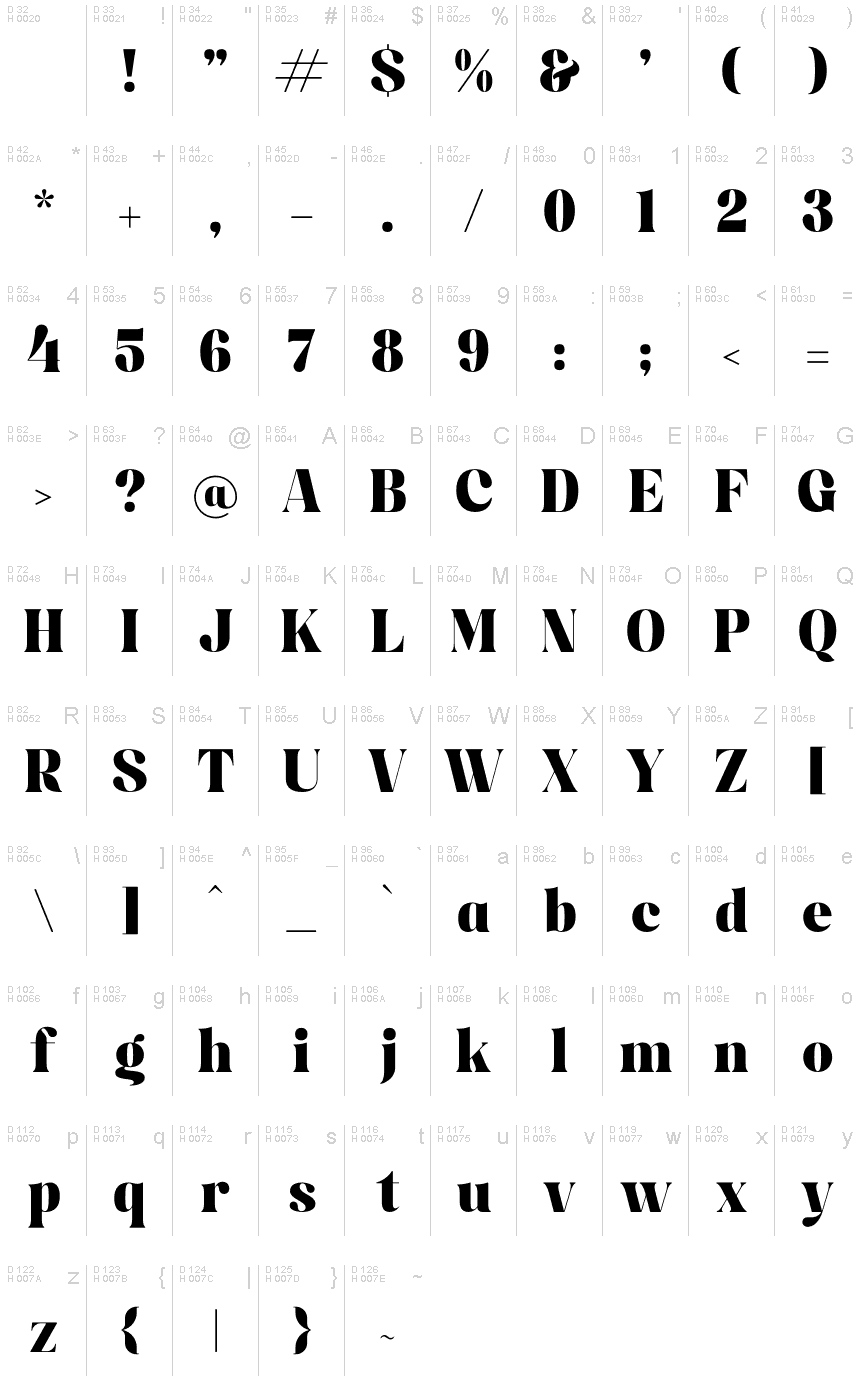
Ragitta
Ragitta, a serif typeface crafted by Storytype Studio, embodies a blend of modernity and classic elegance. With its extra-bold weight, Ragitta exudes confidence and strength, setting the stage for impactful visual communication. Designed to make a statement, this font is an impeccable choice for those seeking to imbue their brand or project with a sense of sophistication and luxury.
The versatility of Ragitta lies in its distinctive style that transitions seamlessly from high-end fashion branding to enthralling book titles and polished magazine layouts. Its commanding presence also lends itself beautifully to logo design, capturing the essence of a brand in every curve and line. Whether it's for lettering that demands attention or quotes that resonate with style, Ragitta is designed to elevate creative expressions across various mediums.